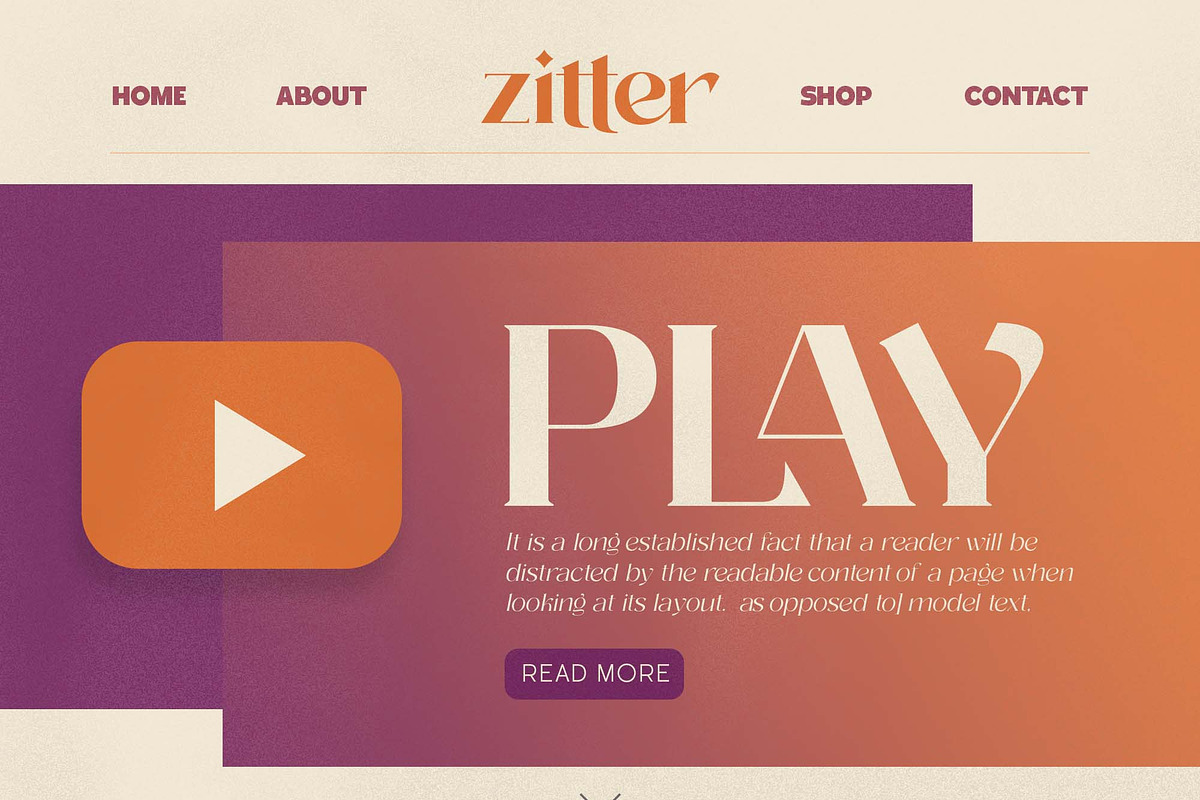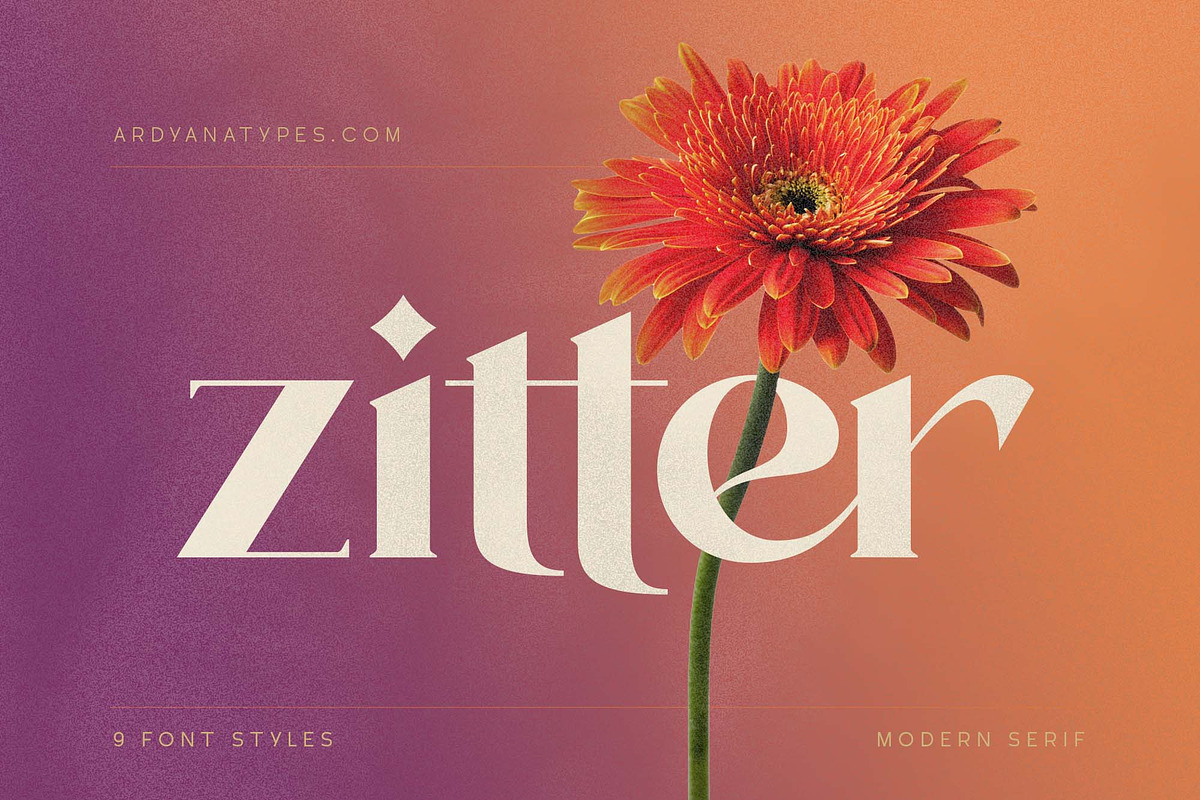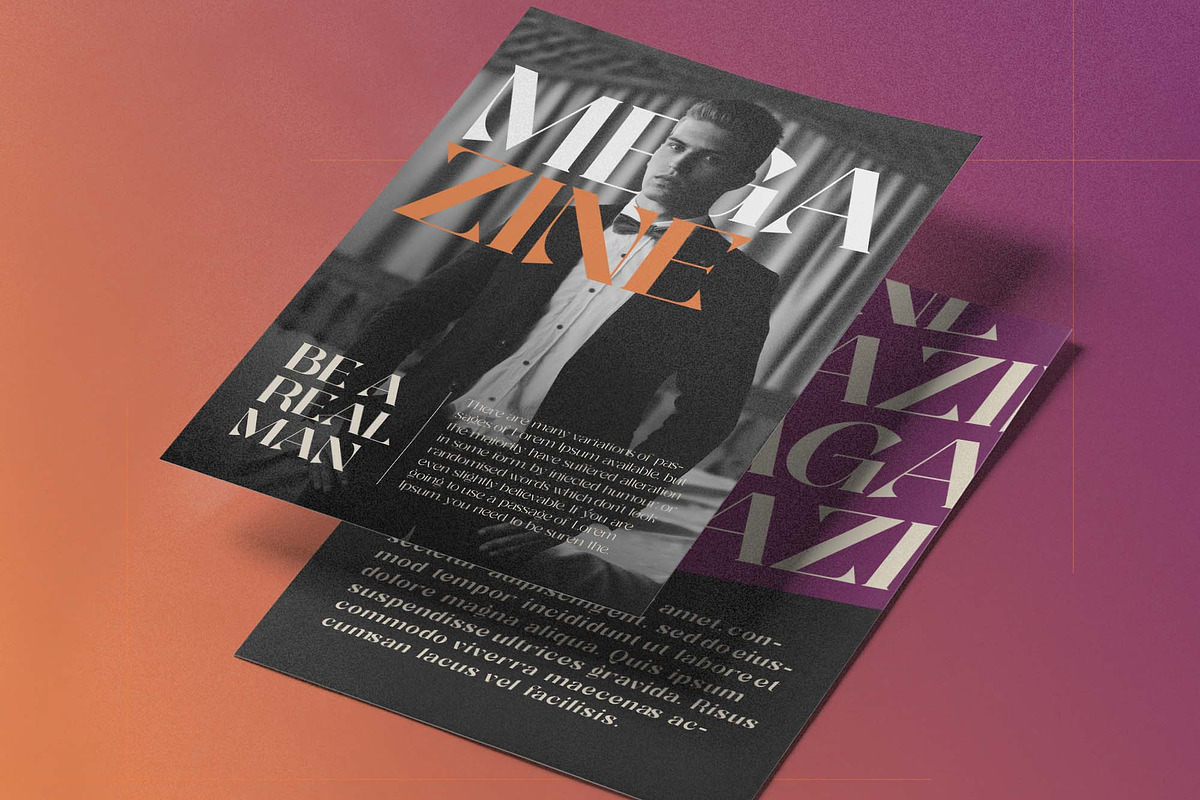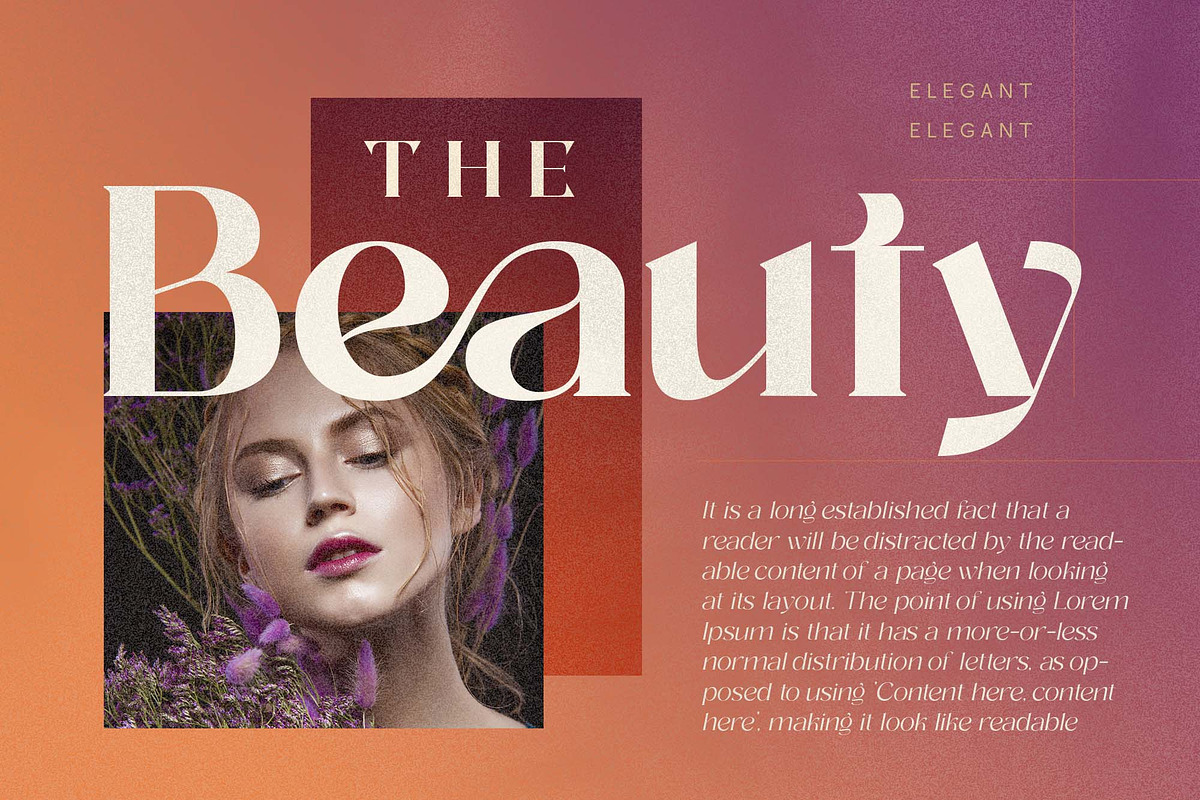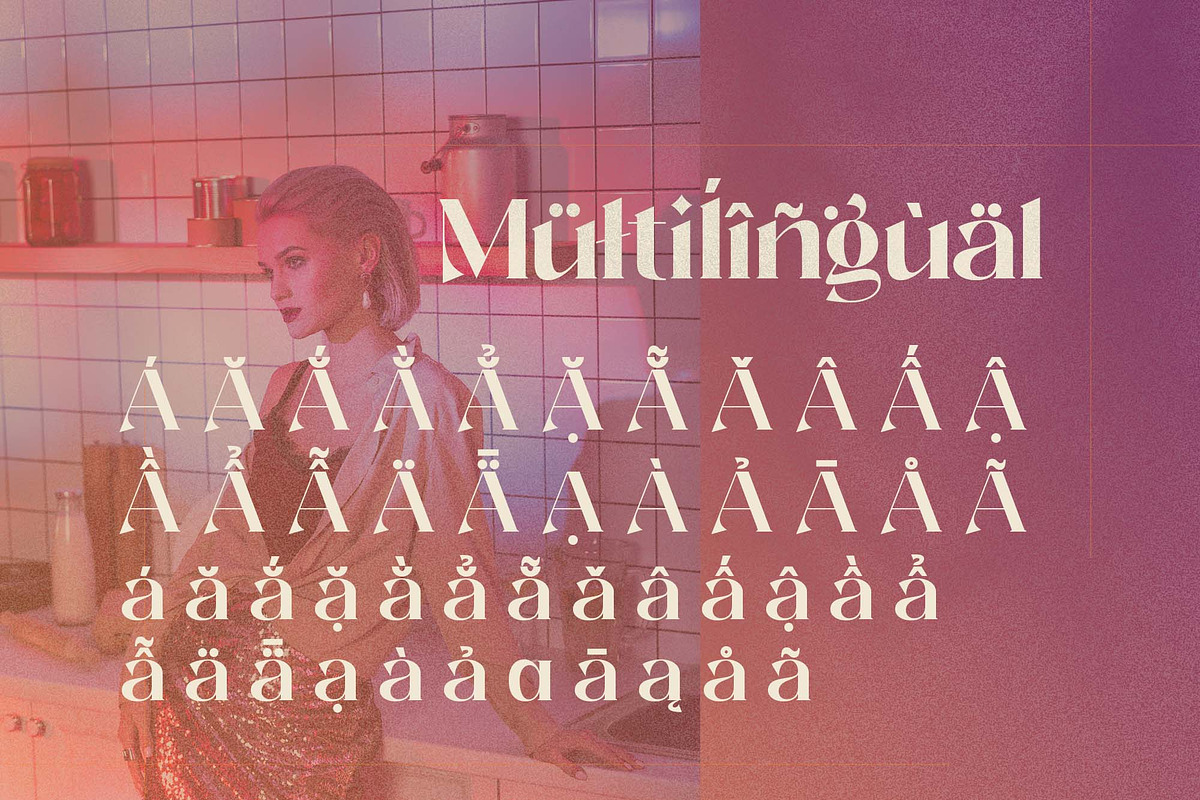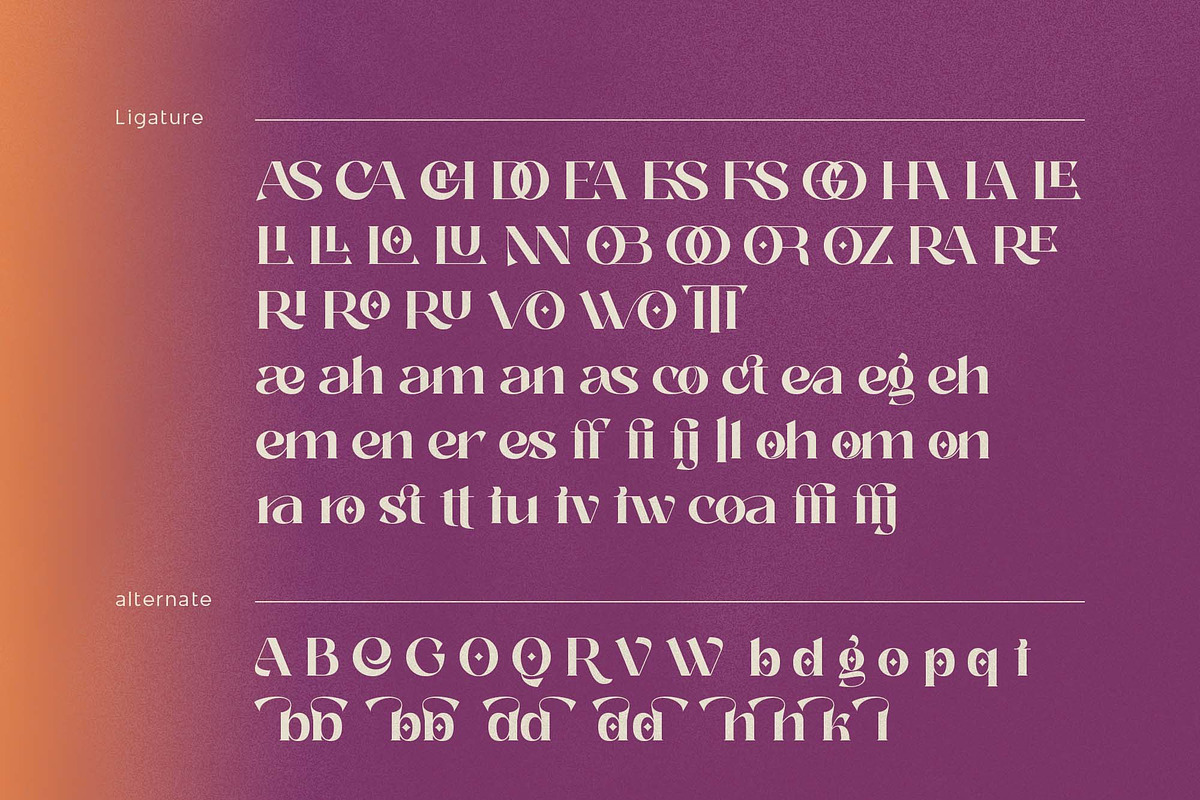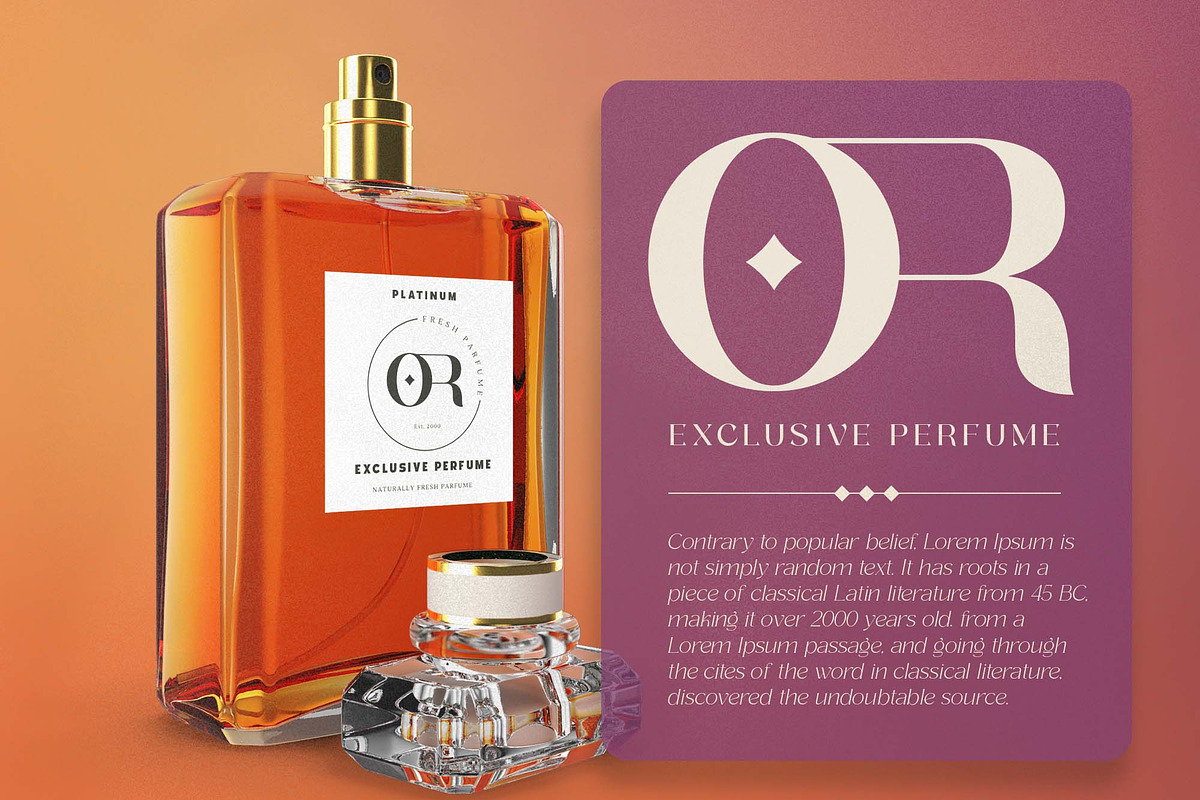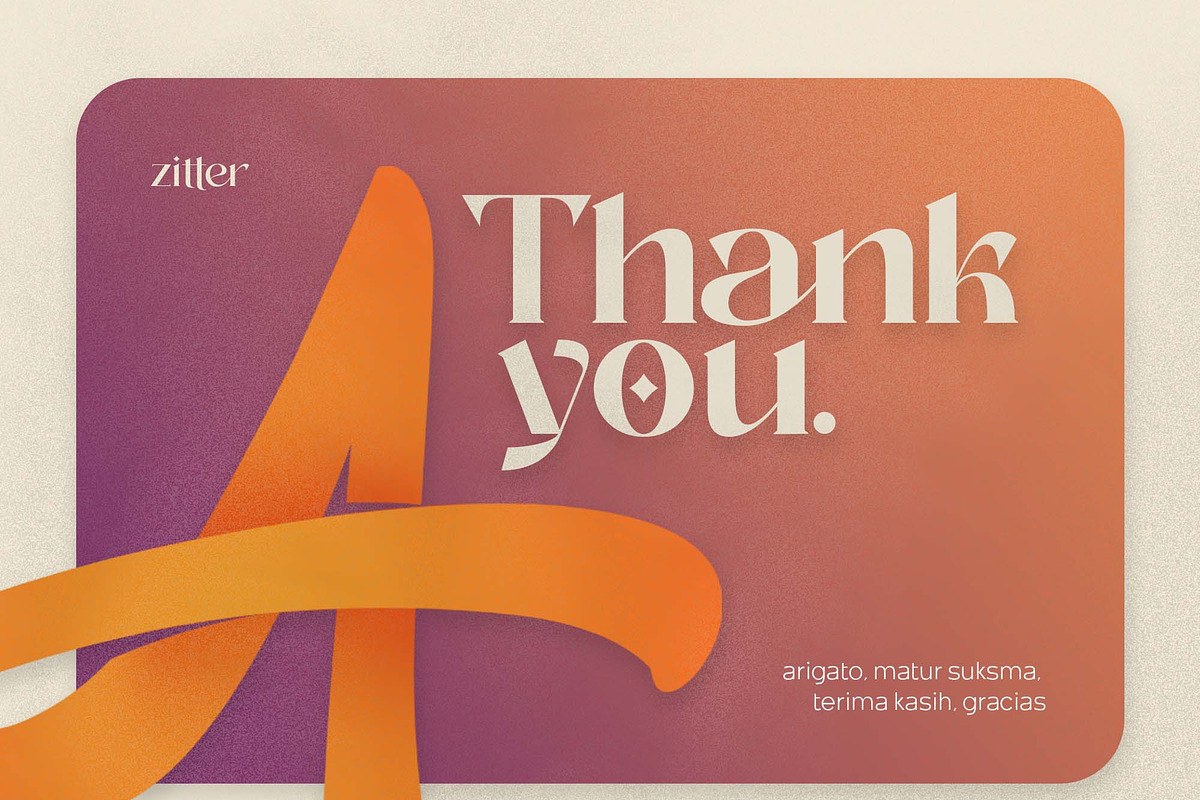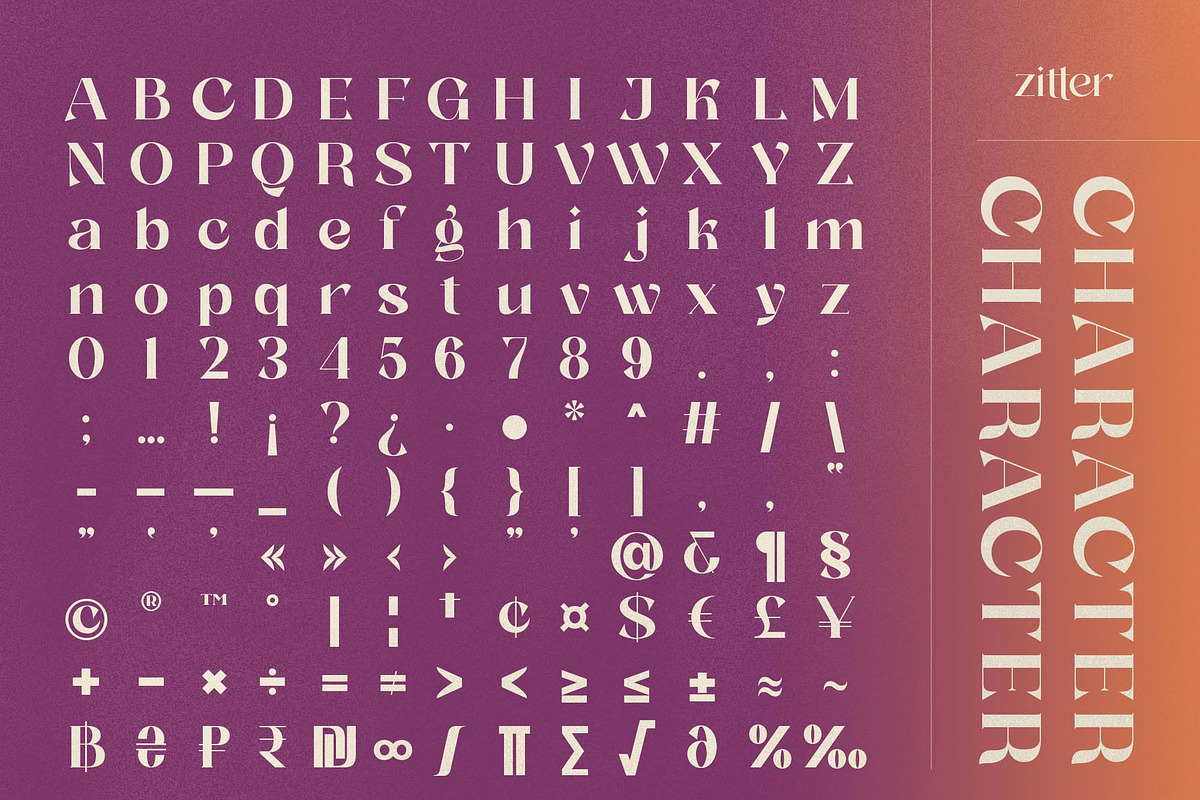
Zitter - Decorative Serif
Zitter Decorative Serif is a serif-style product font that looks luxurious and elegant. This font has many features that will make your designs look more beautiful and elegant. It is very suitable to be used as a type of logo and for branding your brand, and there is still much that you can do with Zitter Decorative Serif. Its unique shape adds a creative impression to it, so it can also use for any fancy, unique, vintage, and elegant themed designs.
Languages Support :Afrikaans, Albanian, Asturian, Asu, Azerbaijani, Basque, Bemba, Bena, Bosnian, Breton, Catalan, Chiga, Colognian, Cornish, Croatian, Czech, Danish, Dutch, Embu, English, Esperanto, Estonian, Faroese, Filipino, Finnish, French, Friulian, Galician, German, Gusii, Hungarian, Icelandic, Igbo, Indonesian, Irish, Italian, Kabuverdianu, Kalaallisut, Kalenjin, Kamba, Kikuyu, Kinyarwanda, Latvian, Lithuanian, Low German, Lower Sorbian, Luo, Luxembourgish, Luyia, Machame, Makhuwa-Meetto, Makonde, Malagasy, Malay, Maltese, Manx, Meru, Morisyen, North Ndebele, Norwegian Bokmål, Norwegian Nynorsk, Nyankole, Oromo, Polish, Portuguese, Quechua, Romanian, Romansh, Rombo, Rundi, Rwa, Samburu, Sango, Sangu, Scottish Gaelic, Sena, Shambala, Shona, Slovak, Slovenian, Soga, Somali, Spanish, Swahili, Swedish, Swiss German, Taita, Teso, Turkish, Turkmen, Upper Sorbian, Vietnamese, Vunjo, Walser, Welsh, Western Frisian, Yoruba, Zulu
A – Z Character Set
a – z Characters set
Numerals & Punctuations
OpenType